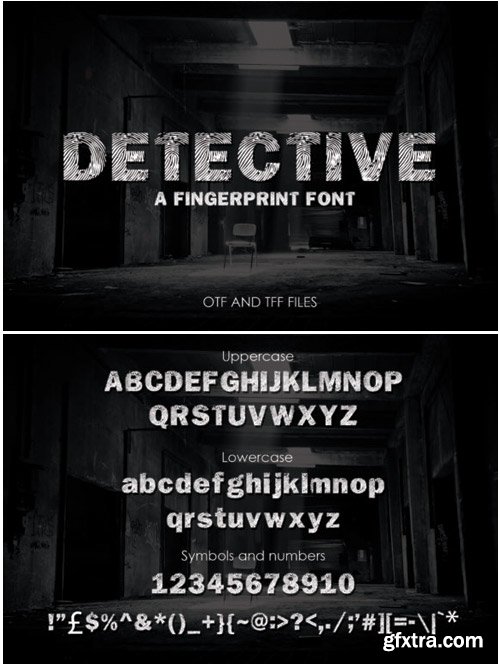
Detective Font
Detective is a suspiciously good display font featuring unique fingerprints. It will add a smart feel to any mystery- or crime-themed design project.